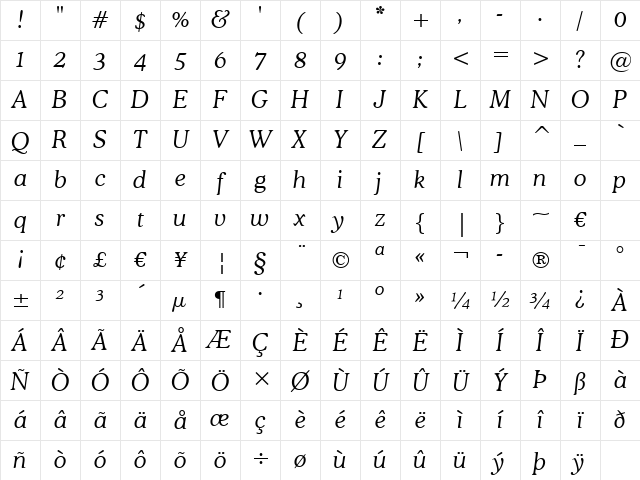
font115 is a composed and adaptable typeface that performs quietly and consistently across a wide range of design contexts. The slanted form adds forward momentum and visual energy.